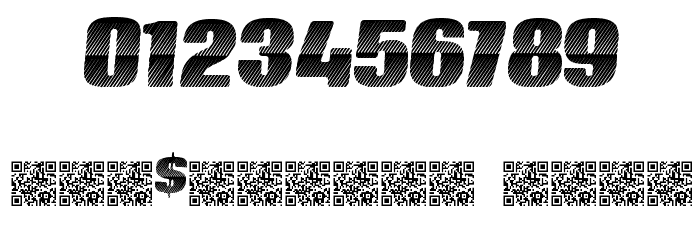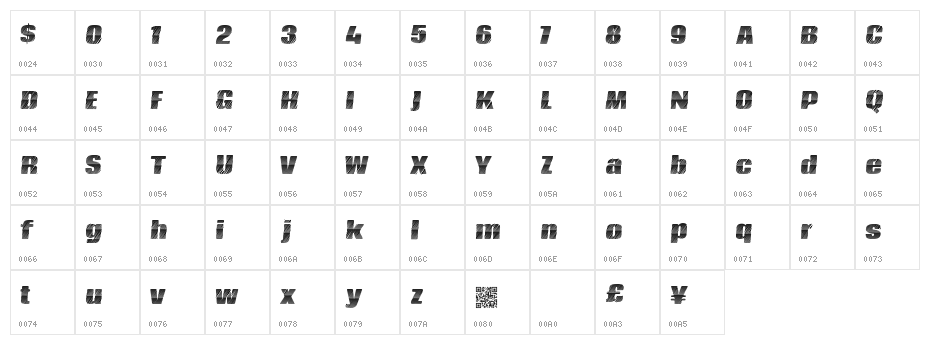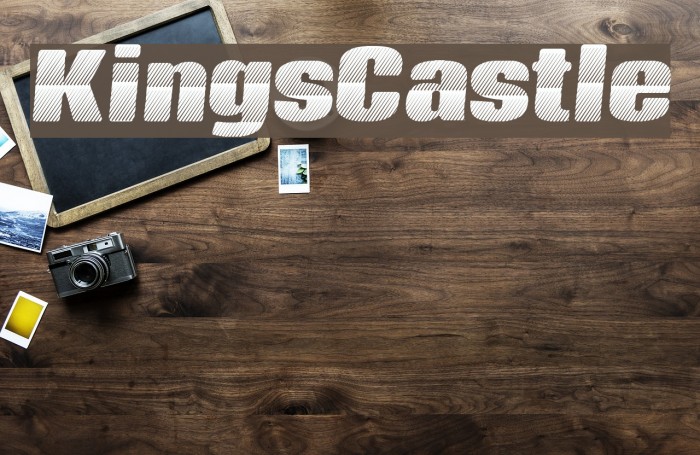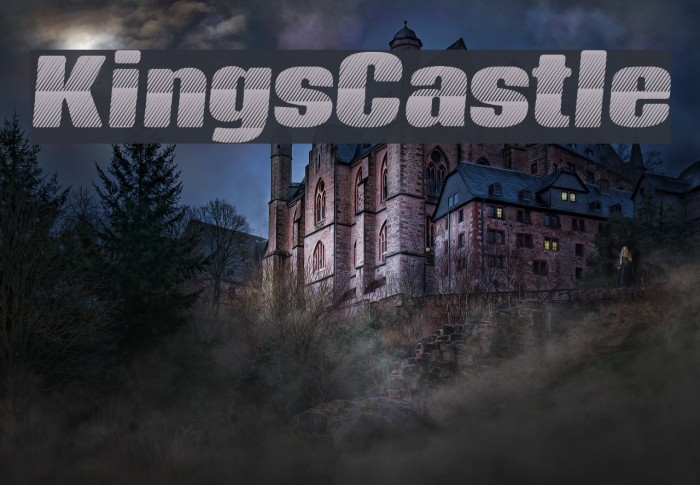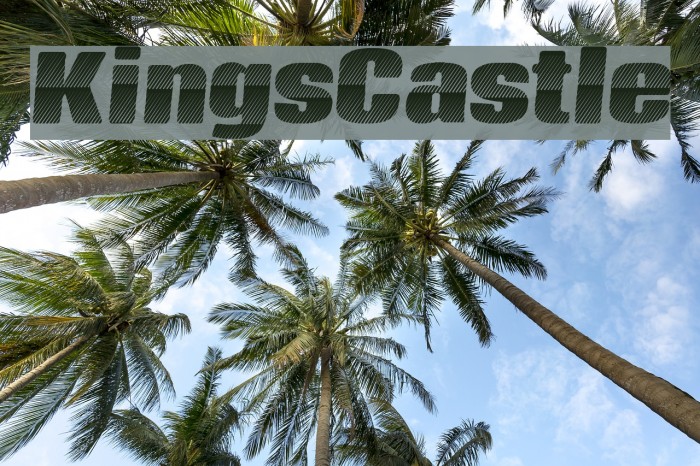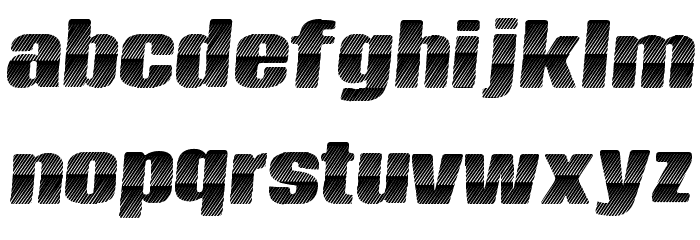
KingsCastle Font
KingsCastle Description
This font features a bold and impactful design with a distinctive diagonal line pattern running through each character, creating a dynamic and textured appearance. The uppercase and lowercase letters maintain a consistent weight, providing a strong visual presence. The numerals and special characters follow the same stylistic approach, ensuring uniformity across all elements. The font's boldness and unique pattern make it suitable for attention-grabbing headlines and titles. Its decorative style adds a creative flair, making it ideal for projects that require a modern and edgy look.